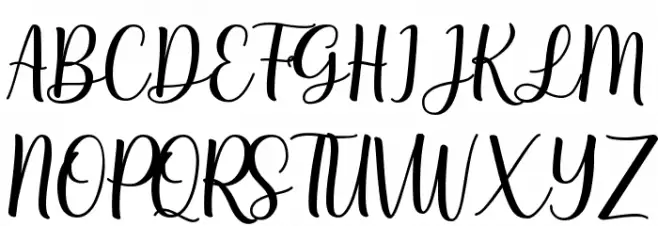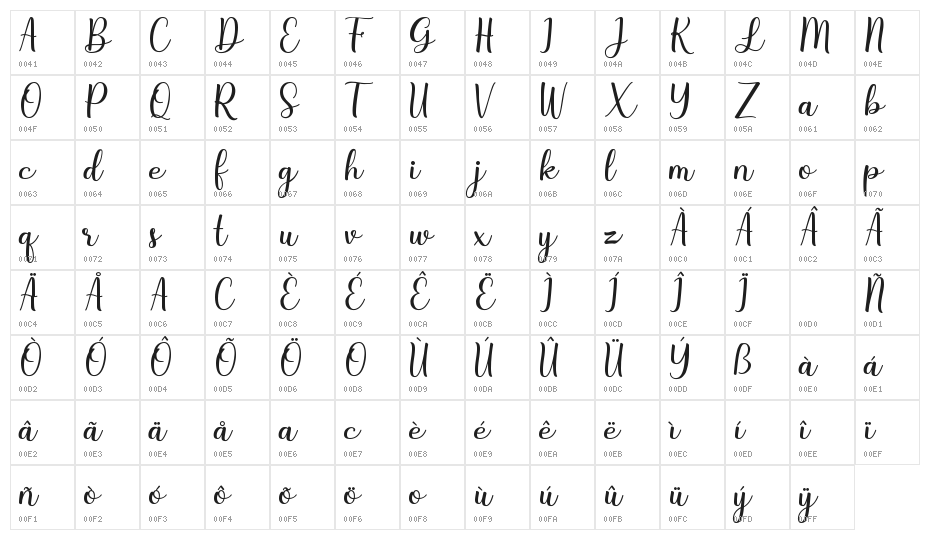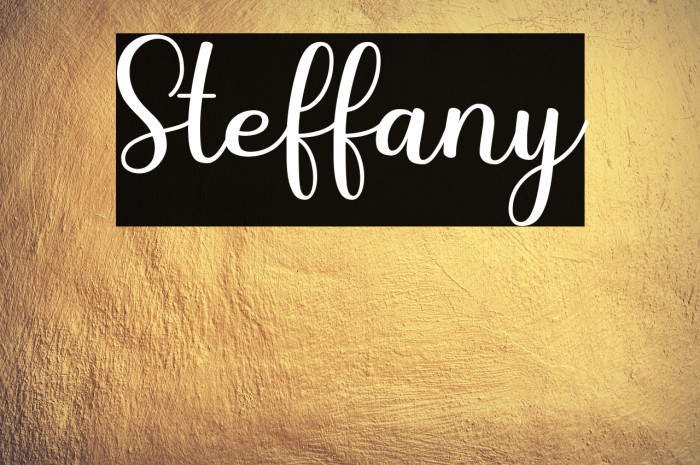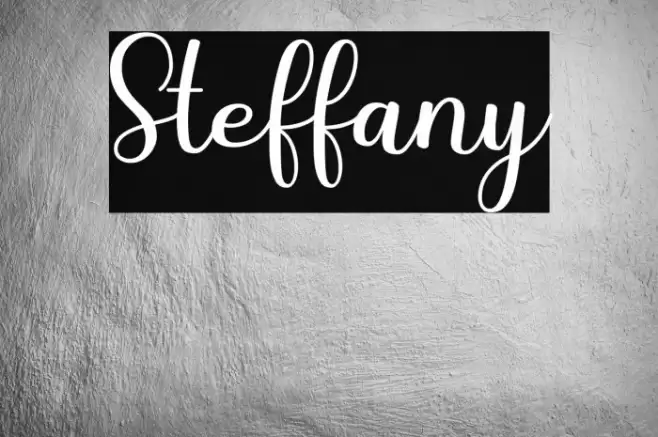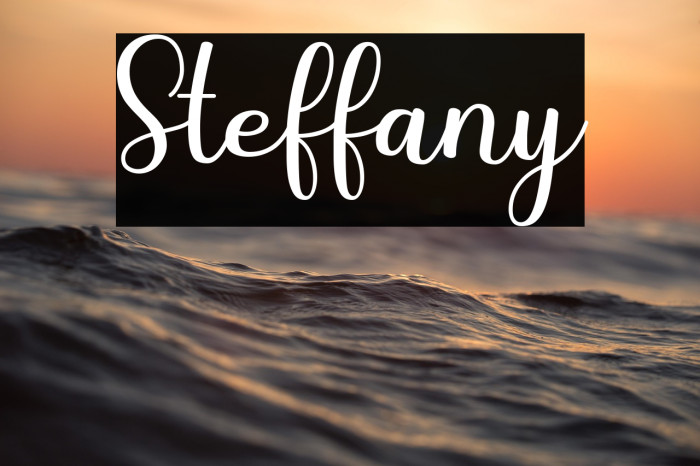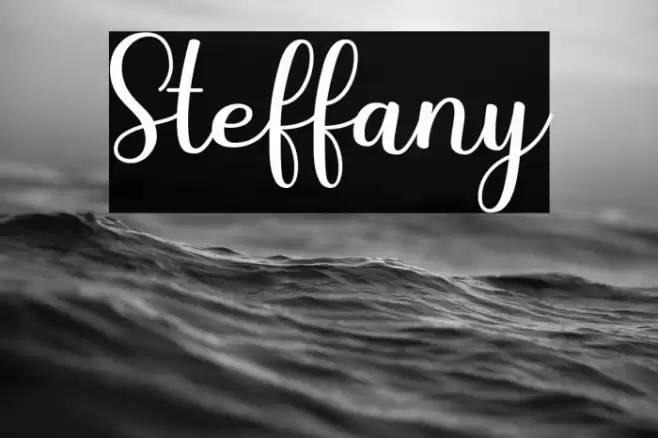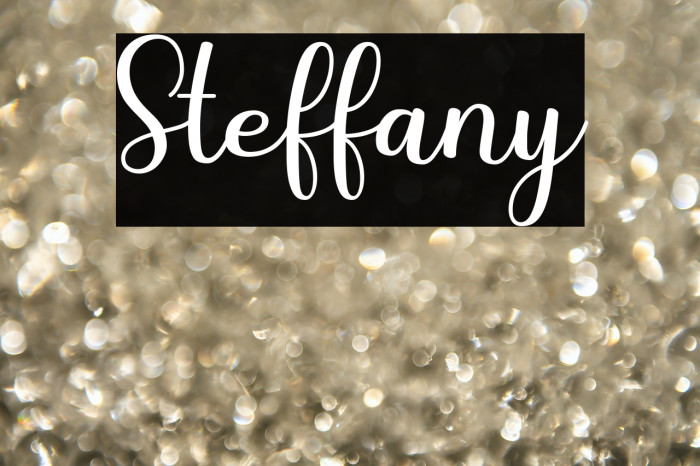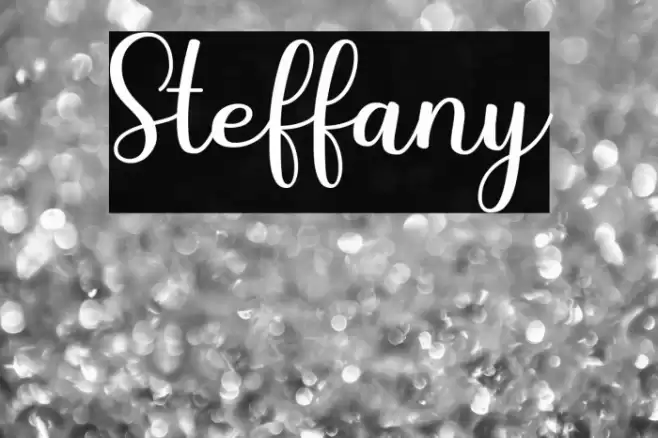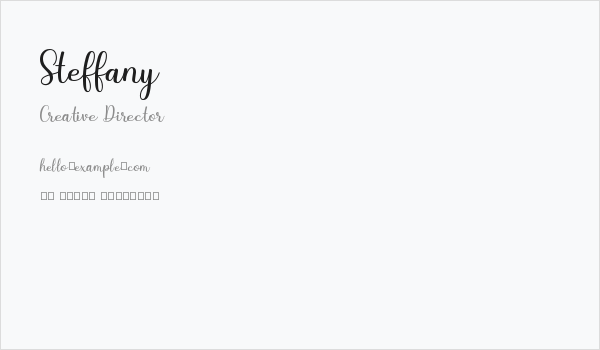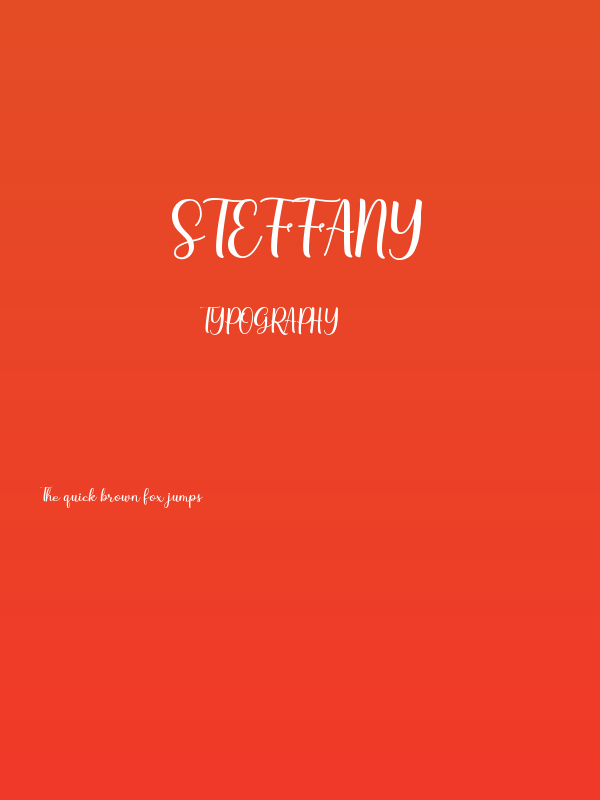
Steffany Font
Steffany Description
This font features a flowing, cursive style with elegant loops and swashes, giving it a handwritten appearance. The characters are well-balanced with a consistent stroke width, creating a harmonious and visually appealing look. The uppercase letters are slightly more ornate, while the lowercase letters maintain a smooth and connected flow, enhancing readability. This font exudes a sense of sophistication and charm, making it suitable for projects that require a personal touch. The overall design is both modern and timeless, with a touch of whimsy.
| Proposed Projects | Ideal for wedding invitations, greeting cards, branding, and social media graphics. |